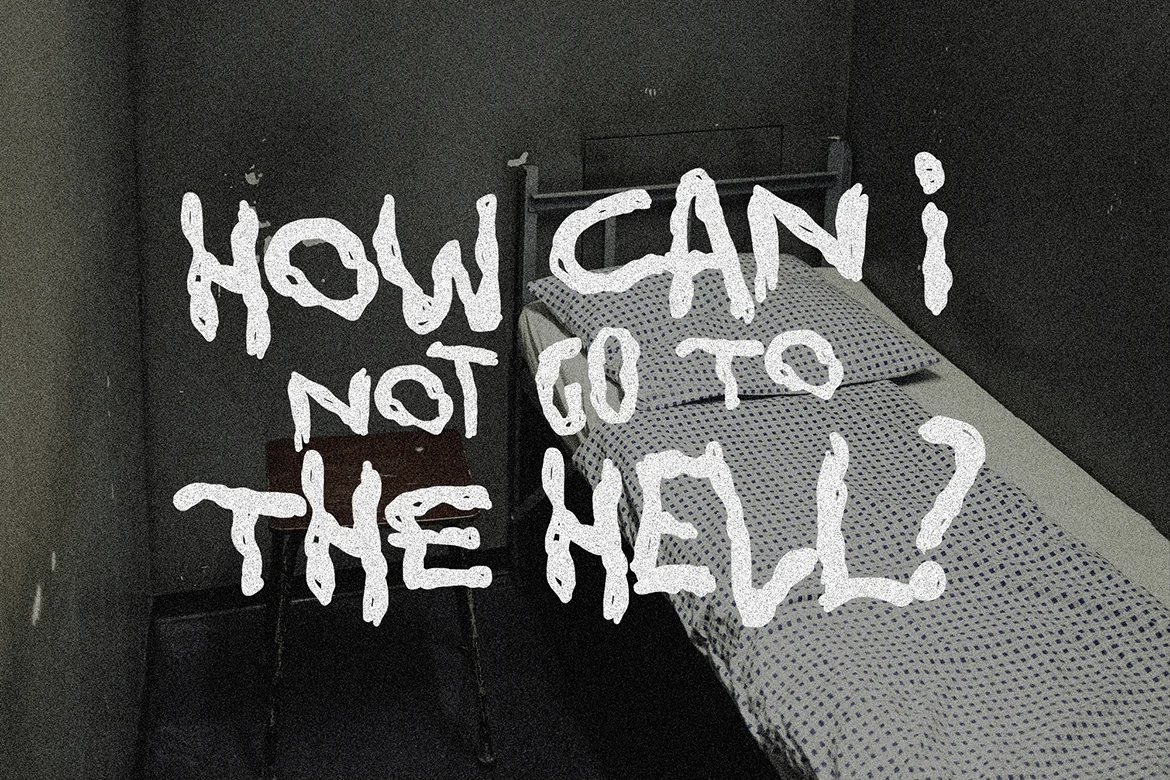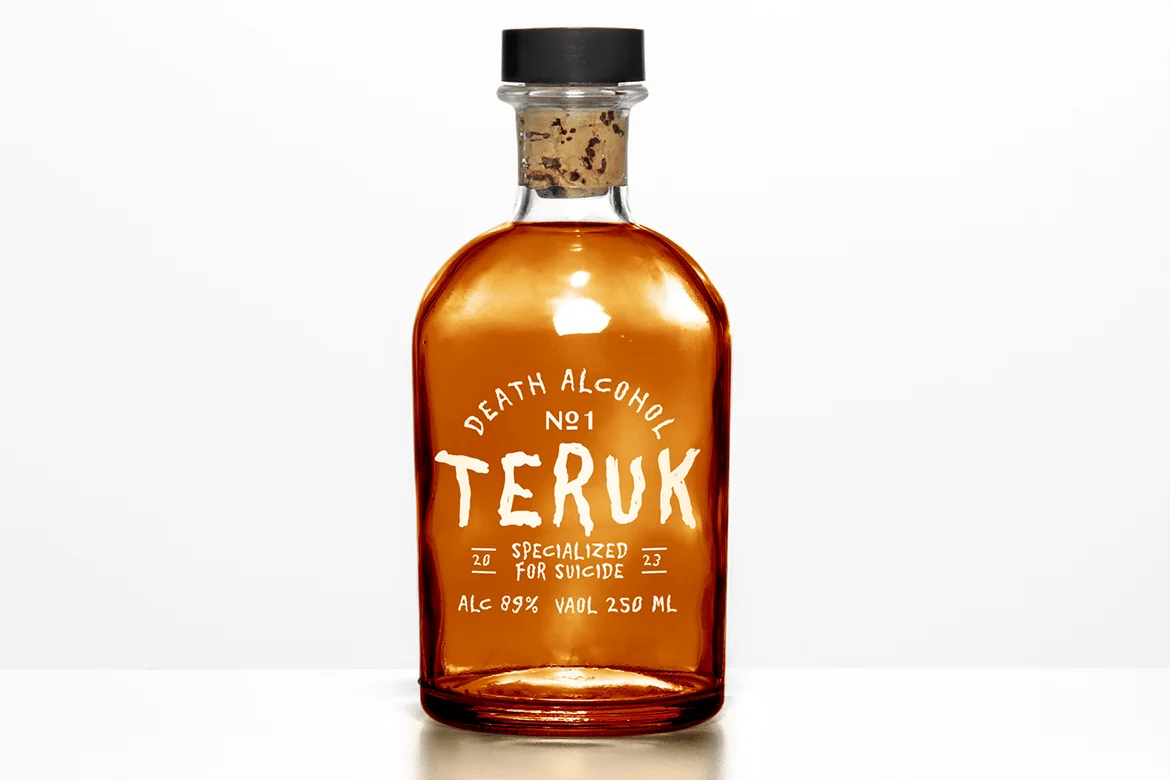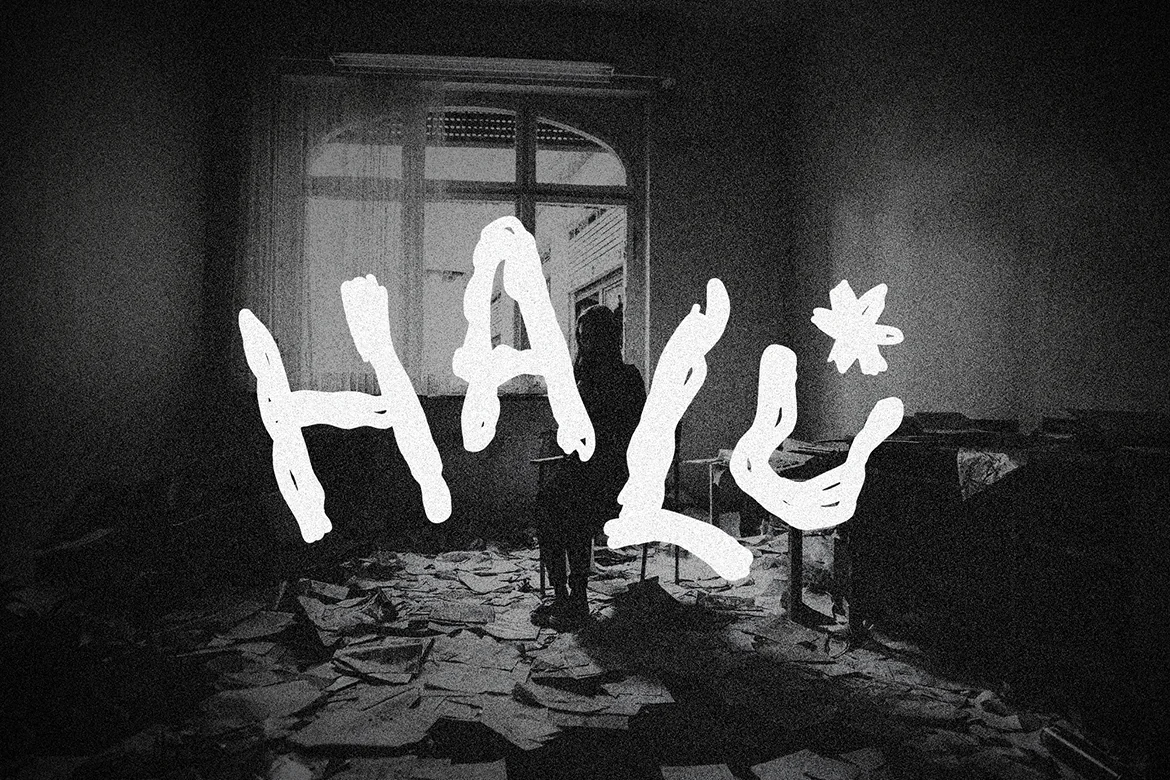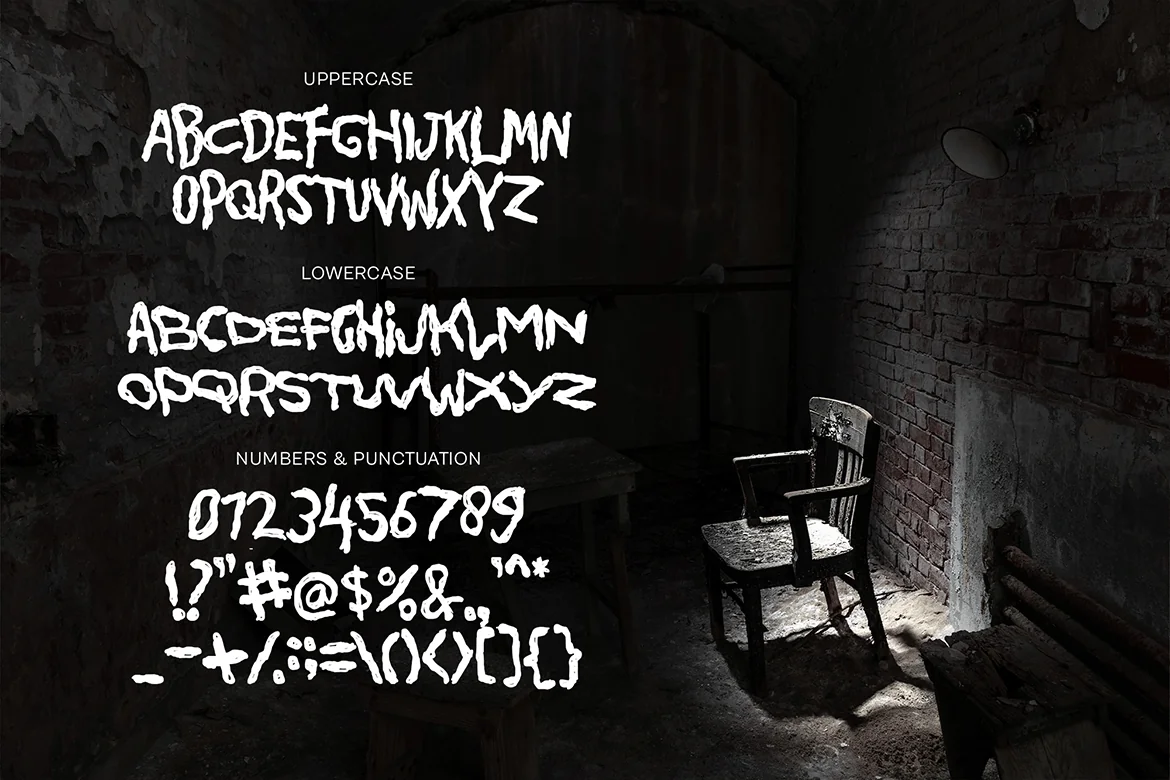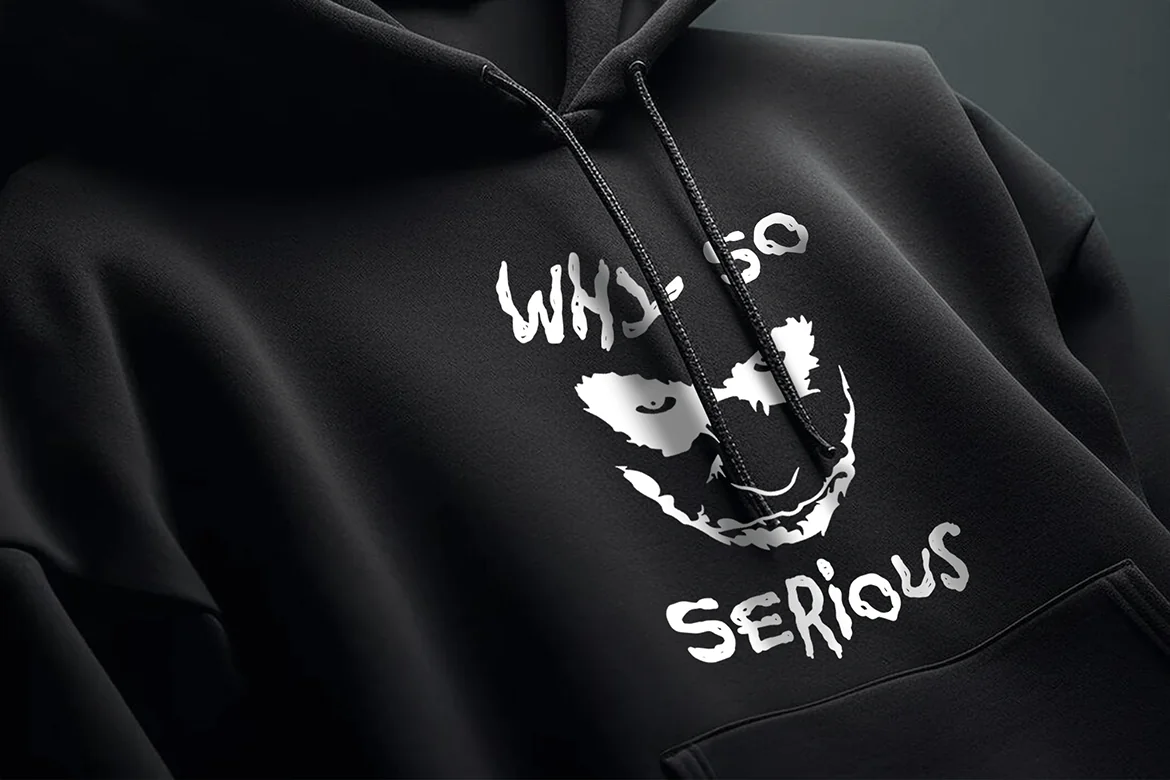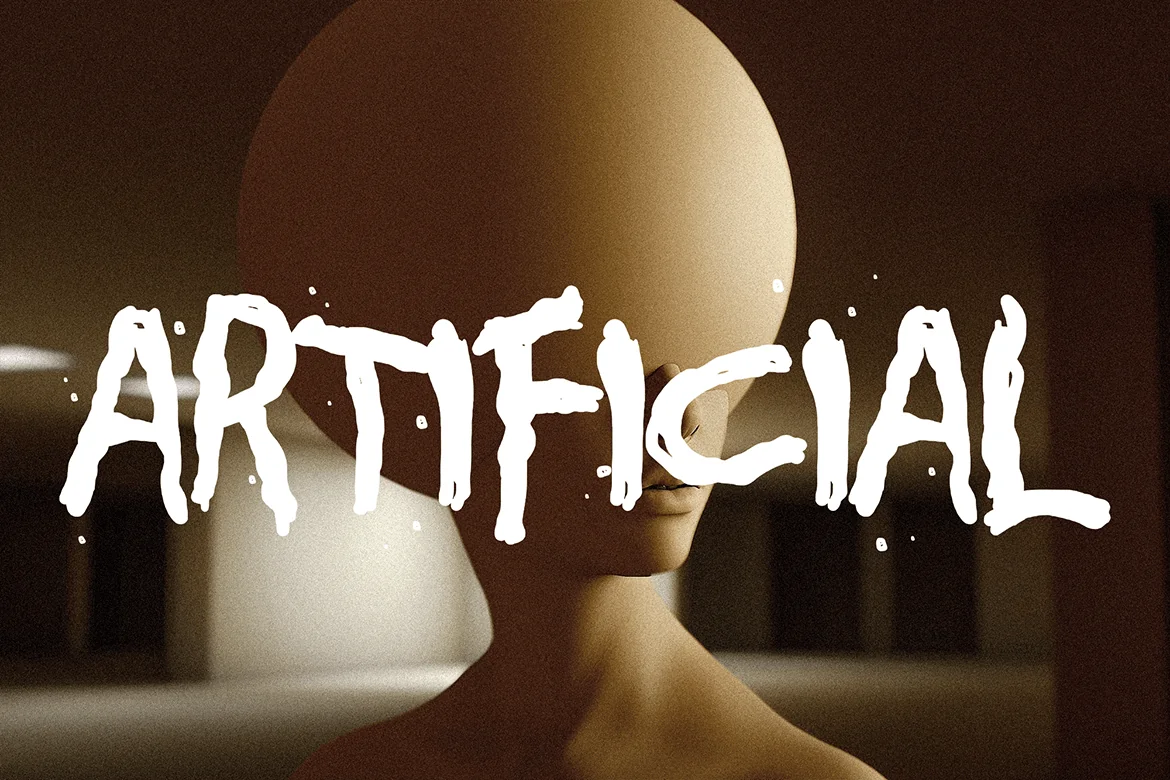
Horror Fonts Halu
Creepy, horror, untidy handwriting it’s perfect for creepy and horror situation. The uppercase and lowercase also can be alternate, because all caps, the lowercase is more wide, uppercase more narrow. We design messy handwriting to make it more creepy and natural handwriting. Cheers!